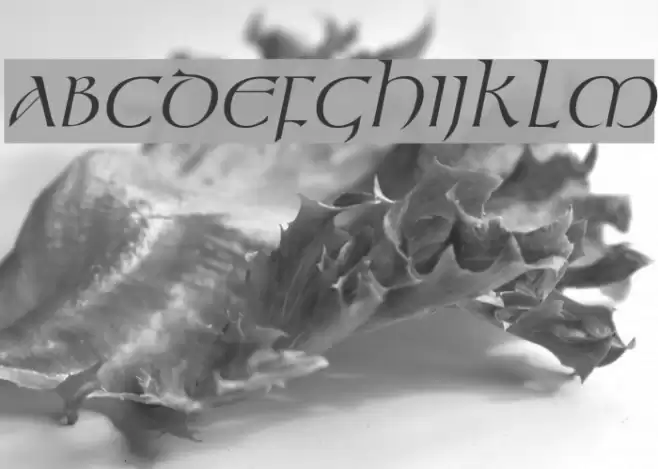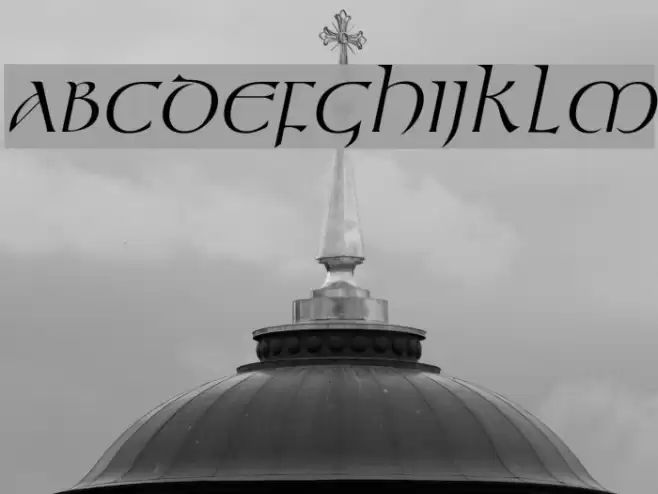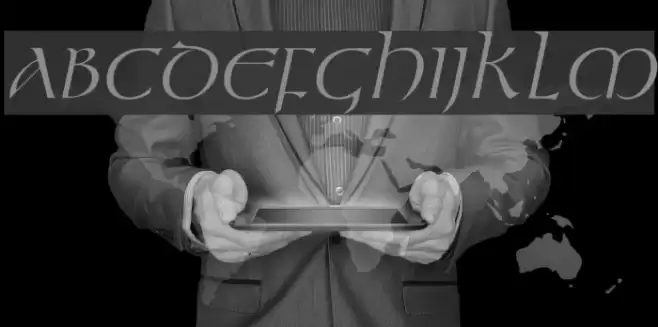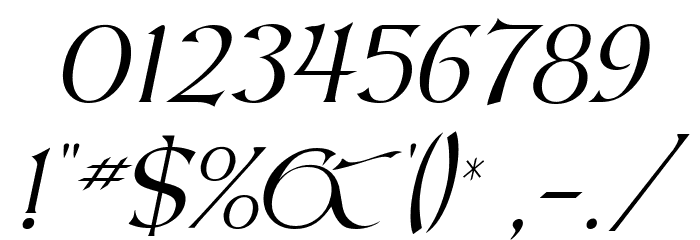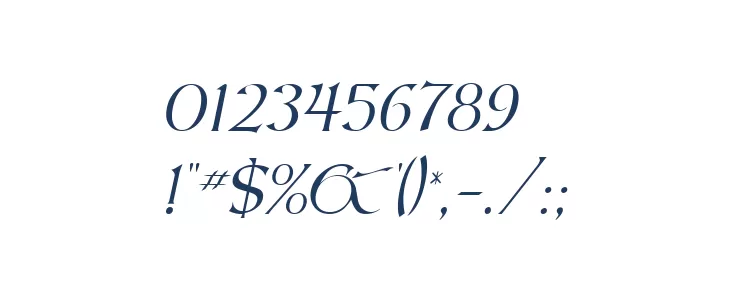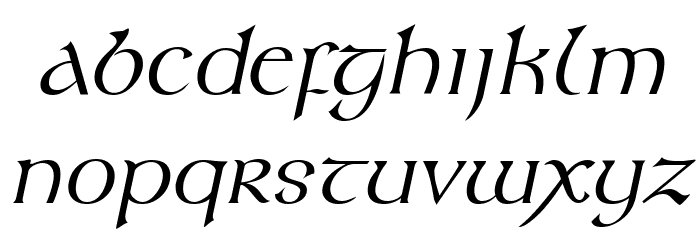
Kelt Italic Font
Kelt Italic Description
This font features a distinct italic style with elegant, flowing lines that give it a sophisticated and artistic appearance. The characters are slightly slanted, enhancing the dynamic and fluid nature of the design. The uppercase letters exhibit a unique flair, with some strokes extending beyond the baseline, adding a touch of drama. The lowercase letters maintain a consistent style, complementing the uppercase with their graceful curves. Numbers are designed with a similar aesthetic, ensuring uniformity across all characters. Special characters are thoughtfully integrated, maintaining the font's overall elegance. This font is ideal for projects that require a touch of class and creativity.
An elegant italic font with flowing lines and artistic flair from Halloween fonts.